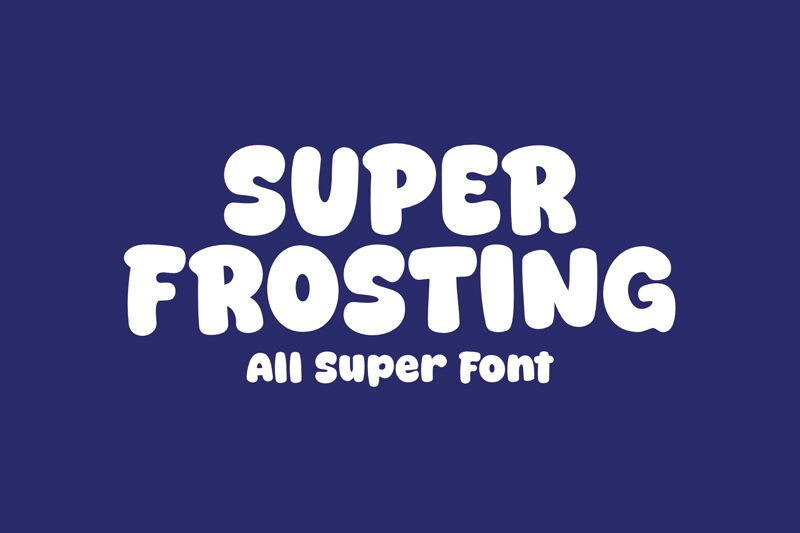
Super Frosting
Super Frosting font designed by fsuarez913 is a free playful display font with a cartoonish feel. The beautifully rounded letters present a vintage and fun design suitable for projects lined within the entertainment industry. Its whimsical overall mood can help you achieve a youthful vibe that’s perfect for fresh and quirky projects.
Use Super Frosting for branding, packaging, posters, online advertising, social media post designs, titles in books and movies, or merchandise printing. Other options may also include typography logotypes, headers on websites/apps/landing pages, or editorial magazine covers.